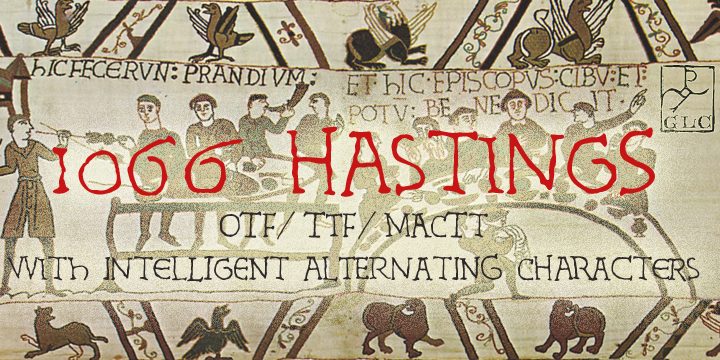
1066 Hastings Font excels in diverse design applications including medieval-themed games, historical documentaries, fantasy novel covers, museum exhibitions, Renaissance festival materials, academic historical publications, traditional heraldry designs, and period-accurate branding that requires authentic medieval character and historical authenticity.
What makes 1066 Hastings Font truly exciting is its authentic recreation of medieval manuscript lettering that transports viewers directly to the Norman conquest era. This remarkable typeface meticulously captures the essence of 11th-century calligraphy with its carefully crafted letterforms that reflect the scribal traditions of medieval monasteries and royal courts. The font's historical accuracy and attention to period detail make it perfect for projects requiring genuine medieval atmosphere and scholarly credibility. Its distinctive character evokes the grandeur and mystique of the Middle Ages while maintaining excellent readability for modern applications.
The 1066 Hastings Font family includes multiple weights and stylistic variations designed to reflect different medieval writing traditions. The collection features Regular, Bold, and Decorative weights, each maintaining authentic historical character while offering varying levels of visual emphasis. The family also includes illuminated capitals, decorative borders, medieval symbols, and alternate characters that enhance period authenticity. Additional features include contextual alternates and stylistic sets that create natural manuscript-style text flow reminiscent of hand-lettered medieval documents.
Historical designers and educators consistently choose 1066 Hastings Font Free Download for projects requiring scholarly accuracy and medieval authenticity. The font's historical credibility makes it particularly effective for educational materials, museum displays, and academic publications where period accuracy is essential. Its excellent legibility across various sizes ensures effective communication while maintaining the distinctive medieval character that adds gravitas and historical context.
The advanced OpenType features of 1066 Hastings Font include extensive ligatures, contextual alternates, and comprehensive character support that accommodates medieval Latin abbreviations and historical punctuation marks. The technical precision ensures authentic medieval appearance while meeting modern typography standards.
For creative professionals seeking a typeface that embodies genuine medieval heritage and historical authenticity, 1066 Hastings Font offers unparalleled period accuracy and scholarly credibility. Its ability to convey historical gravitas while maintaining functional readability makes it invaluable for educational institutions, museums, and entertainment properties requiring authentic medieval atmosphere. The font's distinctive historical character ensures memorable visual impact across all applications, creating powerful connections between modern audiences and medieval heritage.